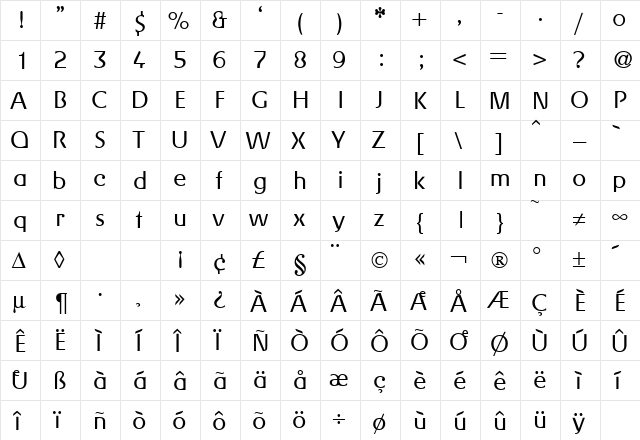
GerlingLight DB Regular
Design Context for GerlingLight DB Typeface
GerlingLight DB offers clean, dependable letterforms without strong stylistic allegiance, making it a practical choice for designers who need flexibility. Its slender proportions lend an understated elegance to any composition.